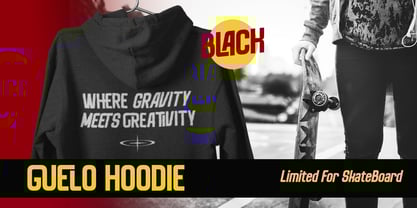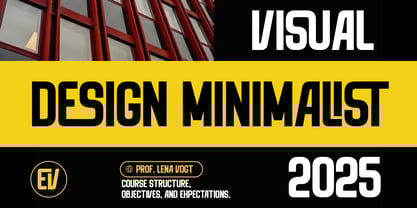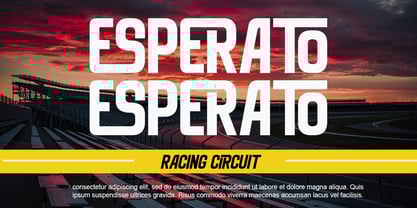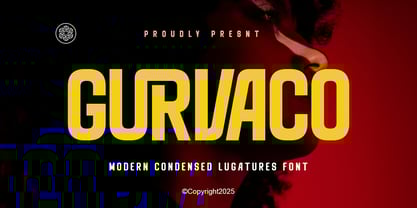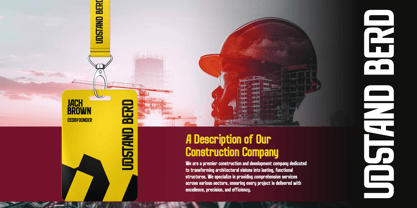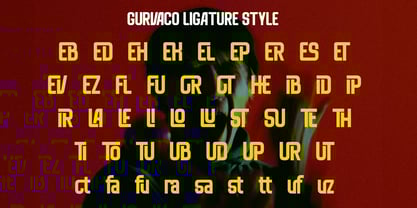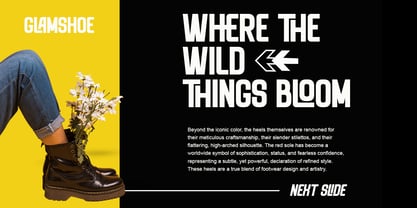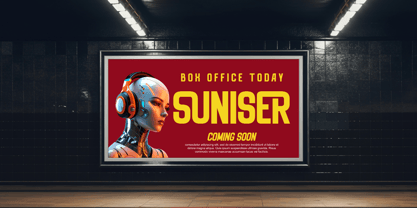
Gurvaco
The Gurvaco Font Family was designed by Yogiswhara Dio Prakoso Riadi and published by RagamKata. Gurvaco contains 2 styles and family package options.
Gurvaco is modern condensed sans serif font designed to steal the show with ligatures style . Its meticulously crafted ultra-compressed letterforms pack a powerful punch, allowing you to create impactful headlines and captivating displays even in the most space-restricted environments. The carefully considered letterforms and weights make it a perfect choice for logo design, packaging, and book covers, where space optimization and visual impact are paramount. Thanks, Have a wonderful day